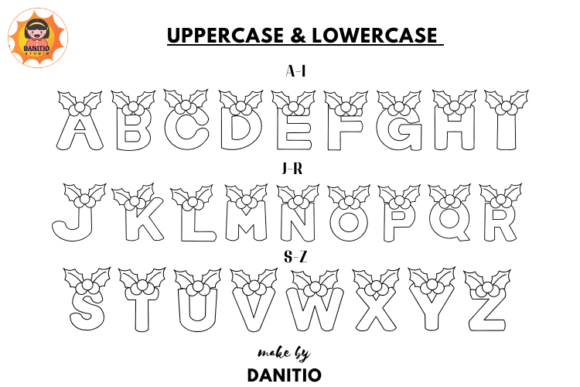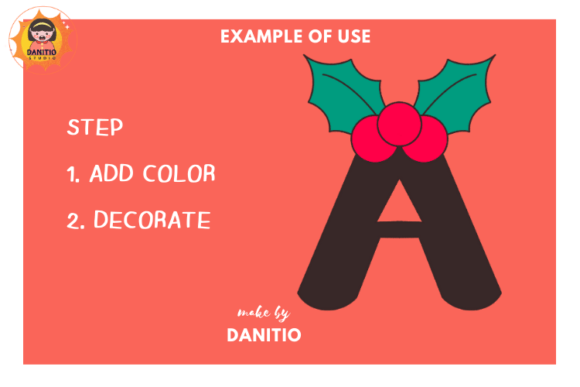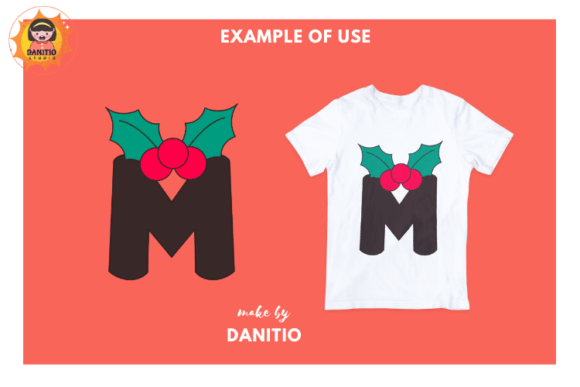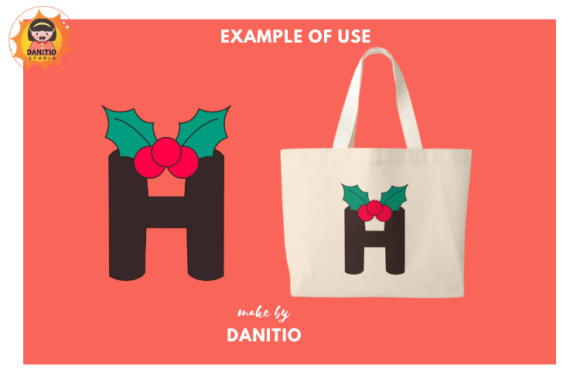
Introduction to Holly Berry Christmas Font
Holly Berry Christmas font is decorated with various cute bouquets of holly.
You can give your Christmas-themed project a fun and quirky atmosphere Including special occasions such as birthdays or New Yearโs Day.